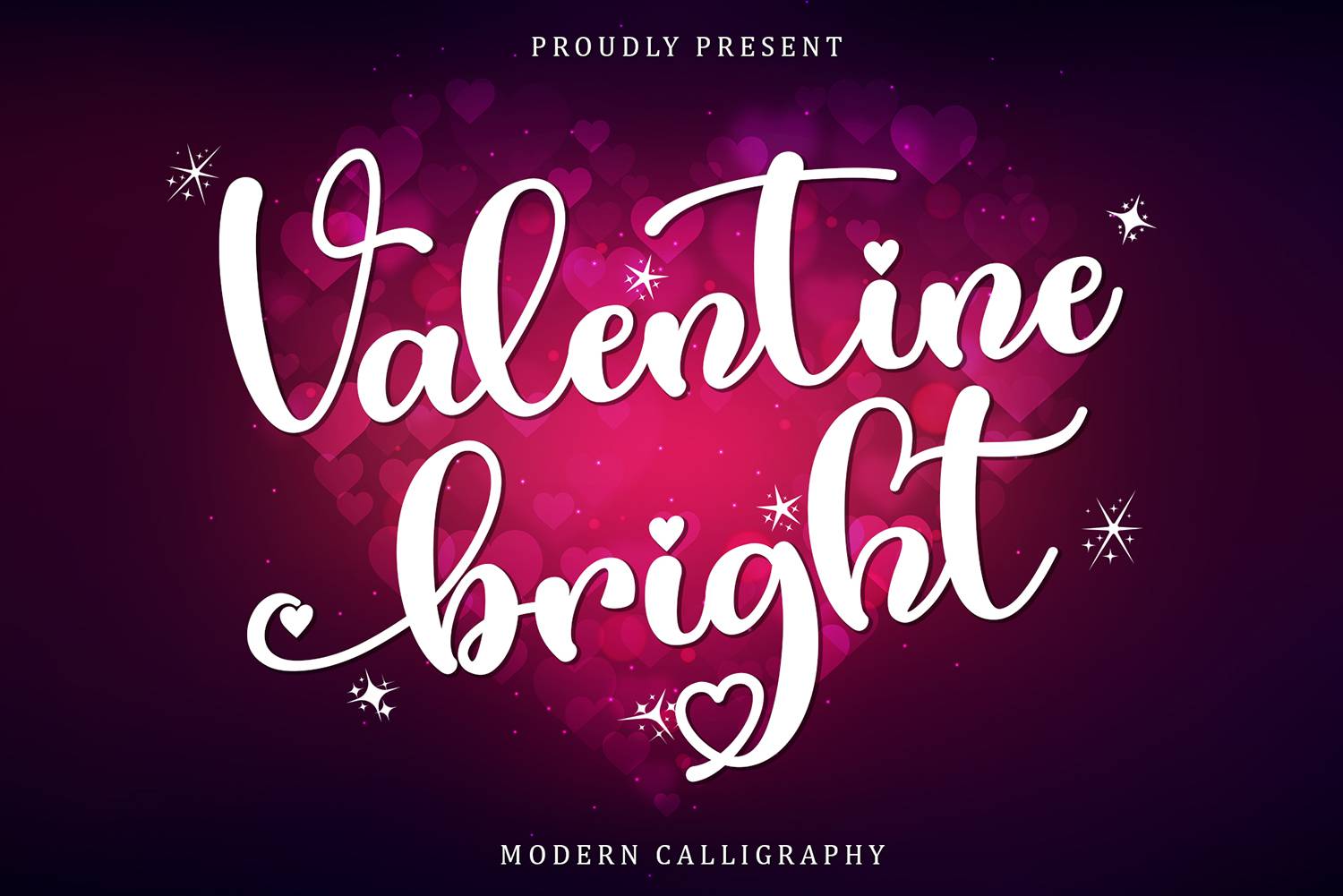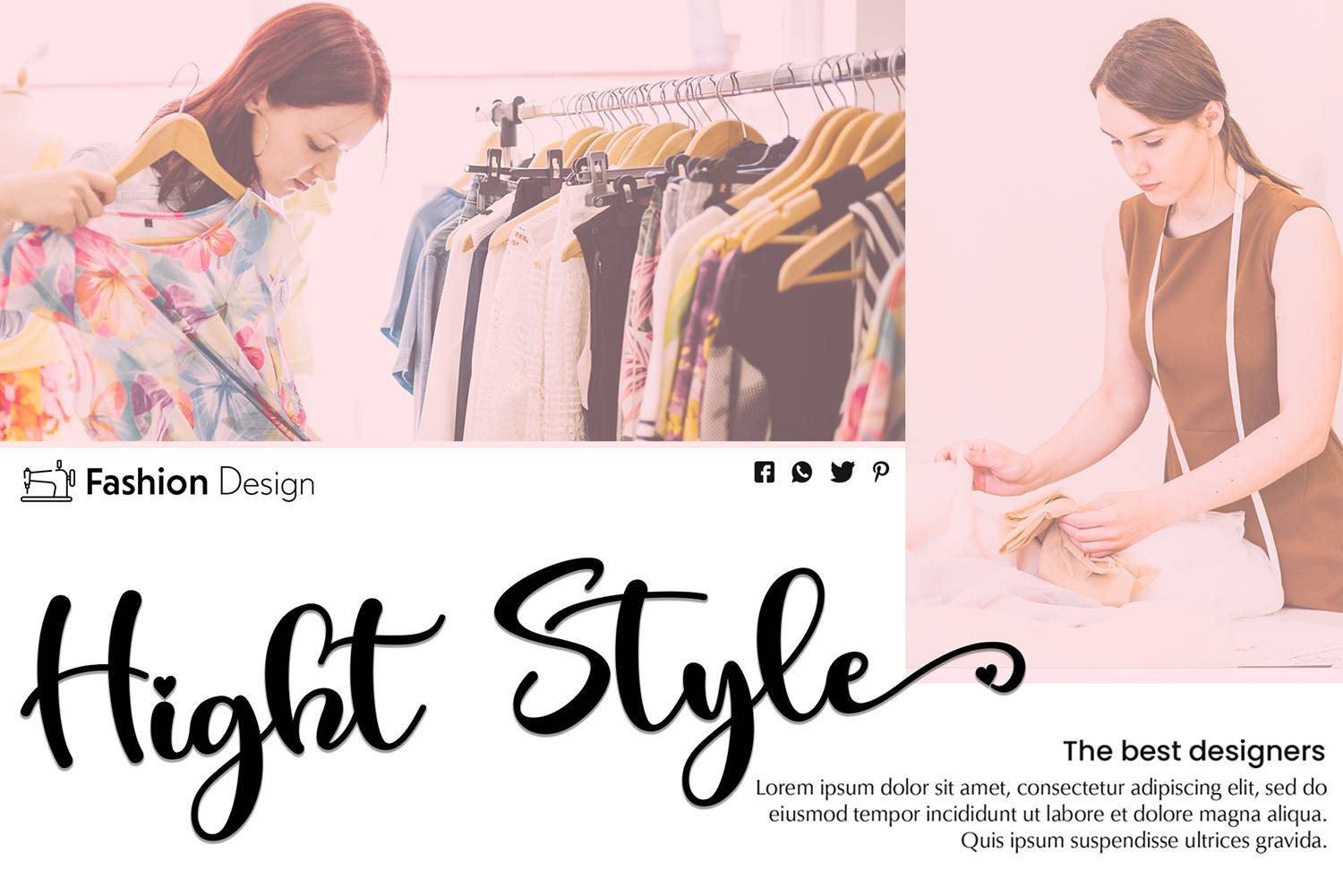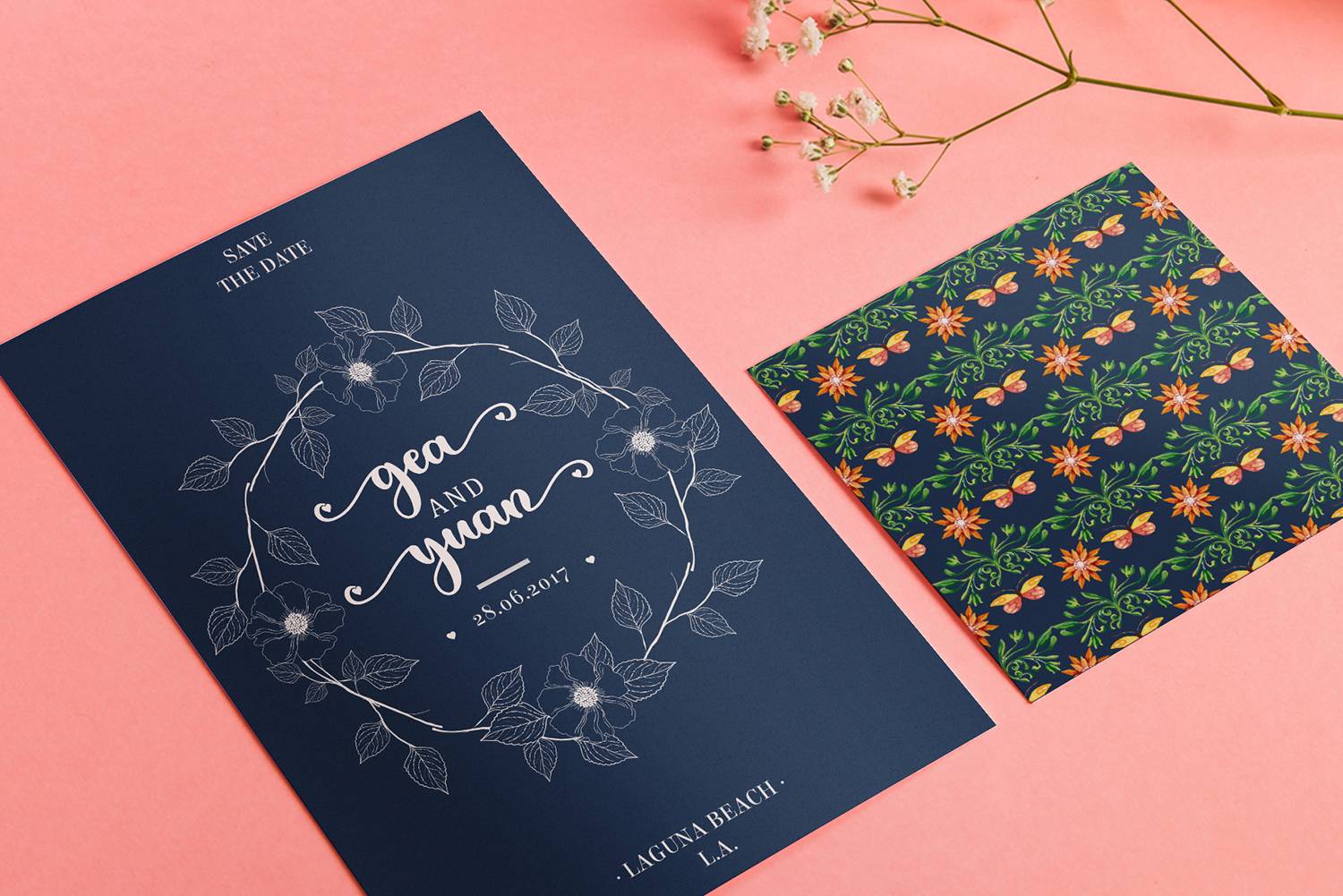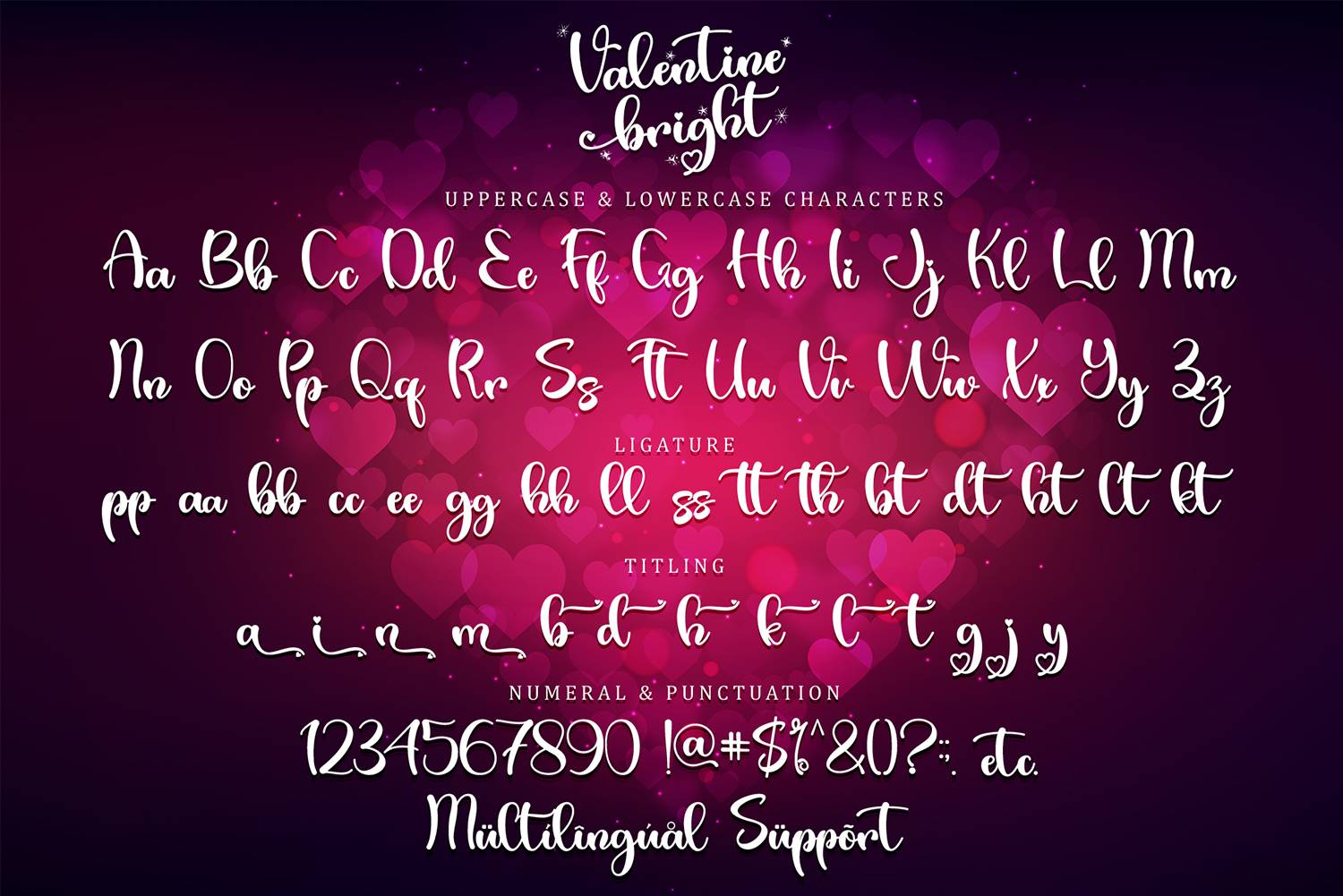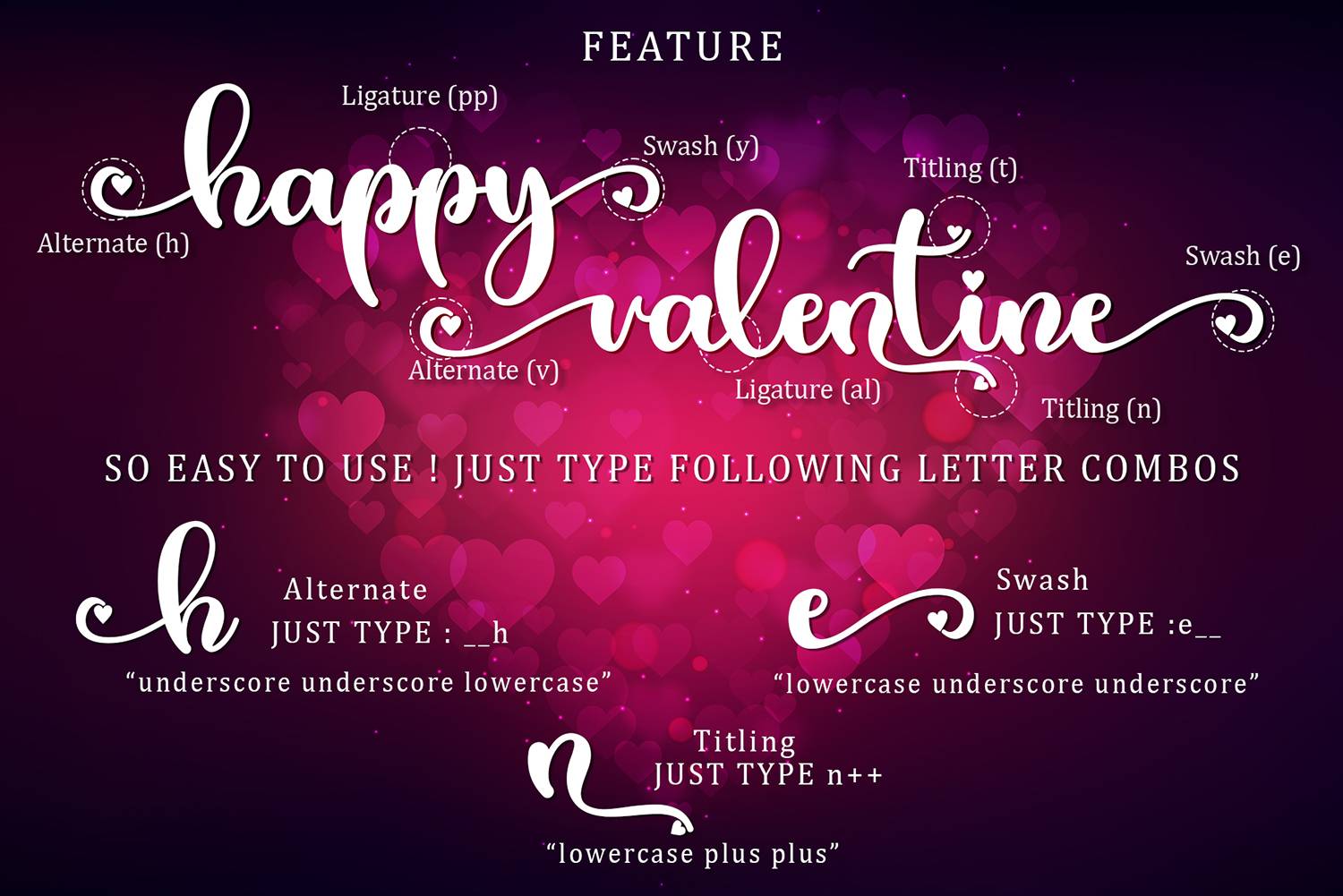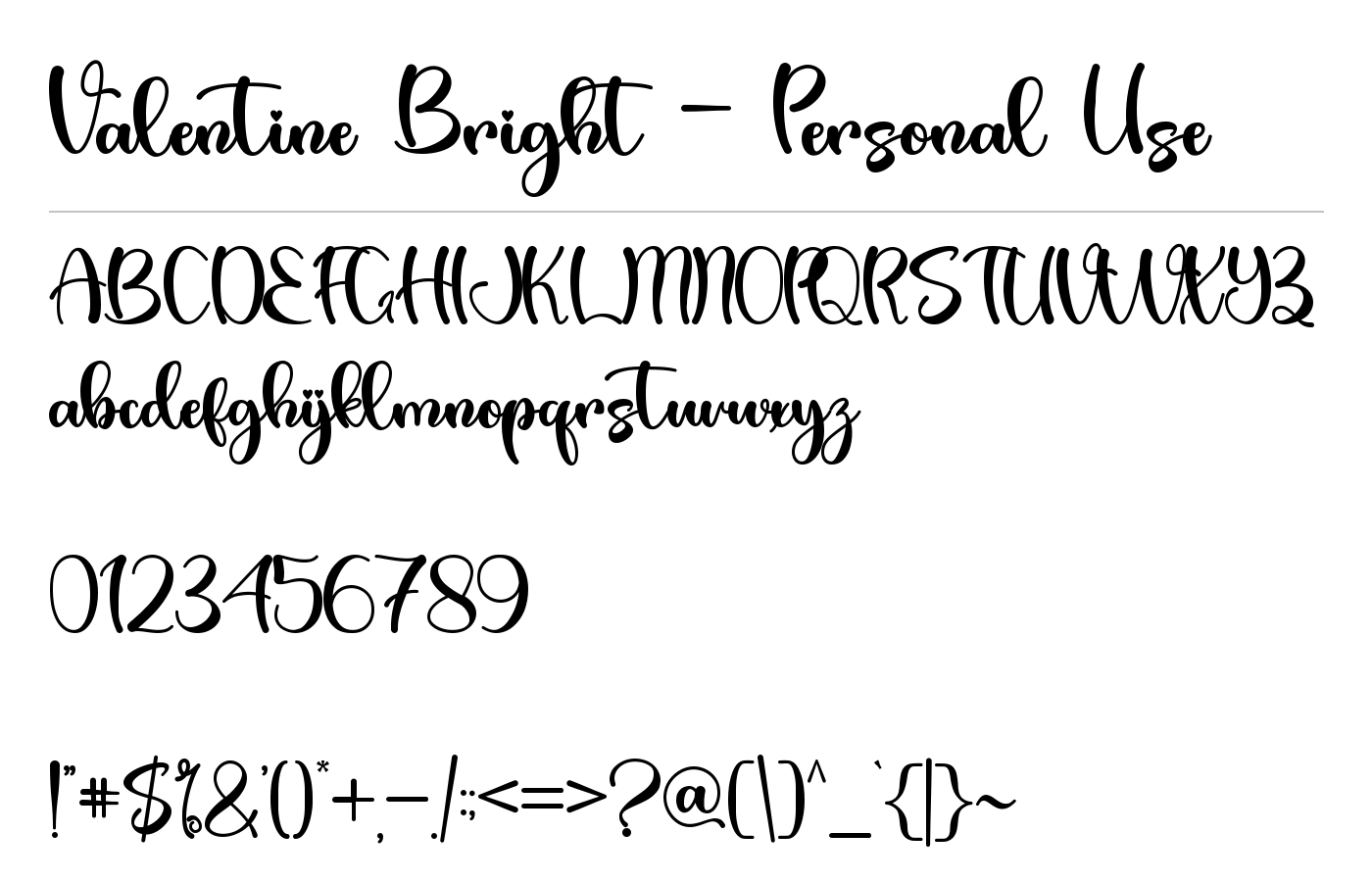
Valentine Bright is a playful and elegant script font featuring smooth, rounded strokes and charming heart-shaped dots that add a whimsical touch. Its lively and casual style makes it perfect for personal projects, greeting cards, and branding that seeks a warm, friendly, and romantic vibe. This font works beautifully in headlines or decorative text where a unique, hand-crafted feel is desired.
Valentine Bright Font
About Valentine Bright Font